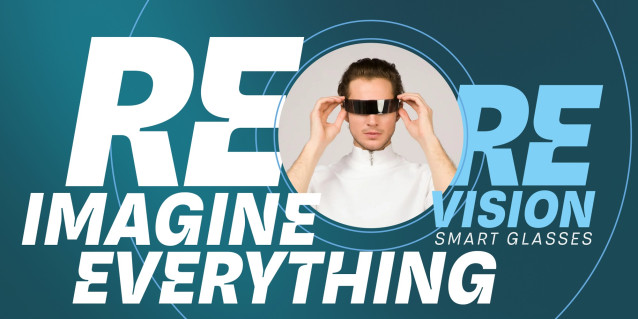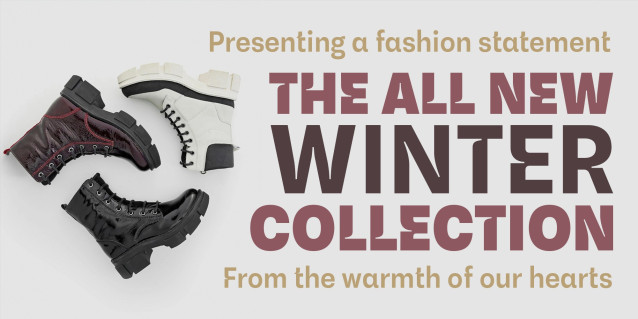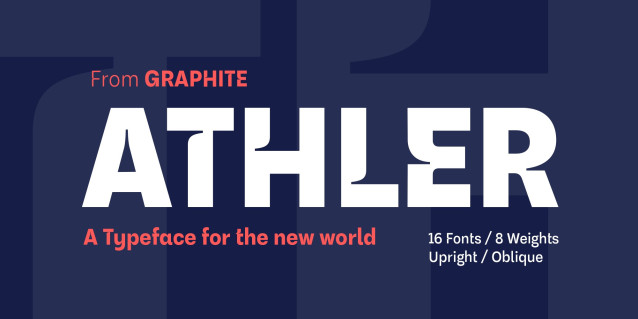
Athler Font
Athler Font is a sans-serif display typeface featuring clean, modern lines with a slightly quirky twist. Its defining characteristic lies in the curved nicks that add personality without sacrificing readability.
The font balances professionalism with charm, making it ideal for branding, packaging, social media, editorial design, or any project needing a touch of uniqueness. Eight weights and corresponding obliques give it versatility and range.
Athler is designed for those who want to push the boundaries of modern typography without going overboard.